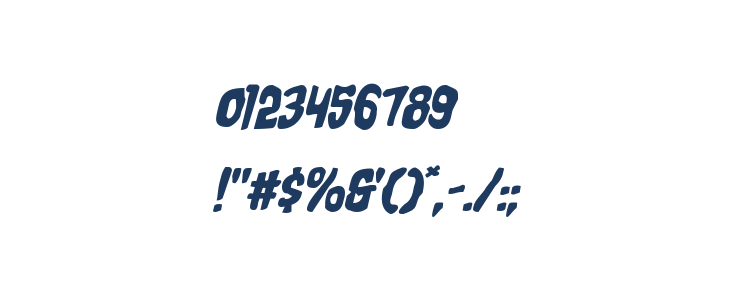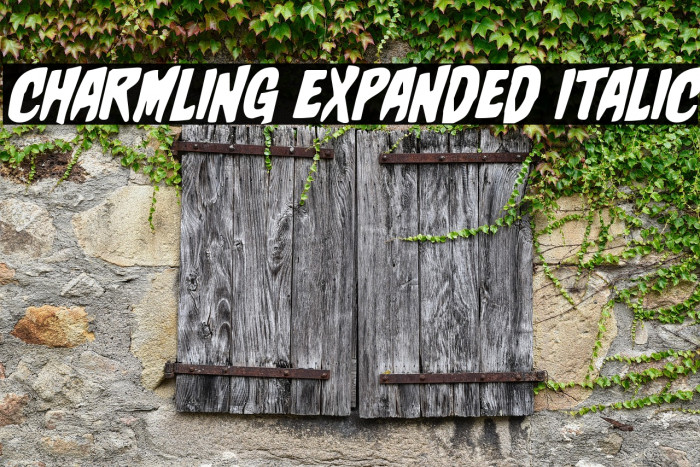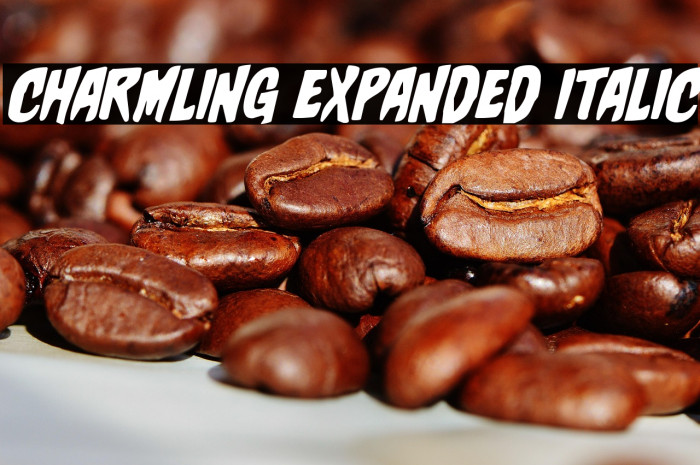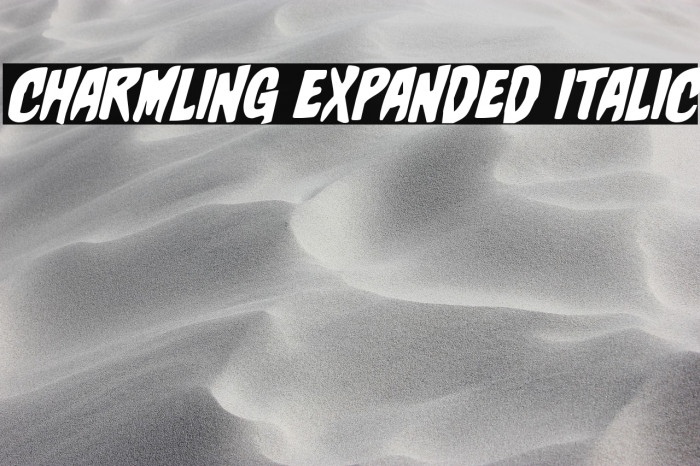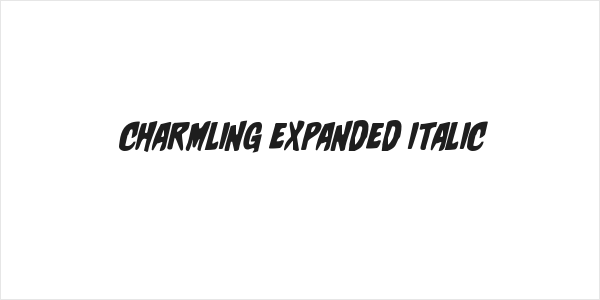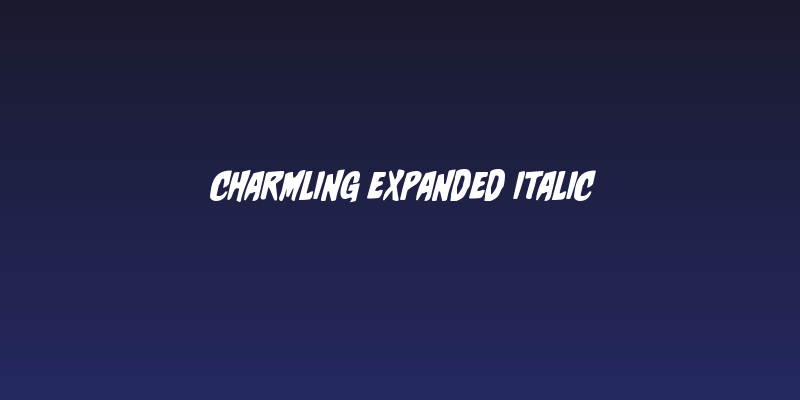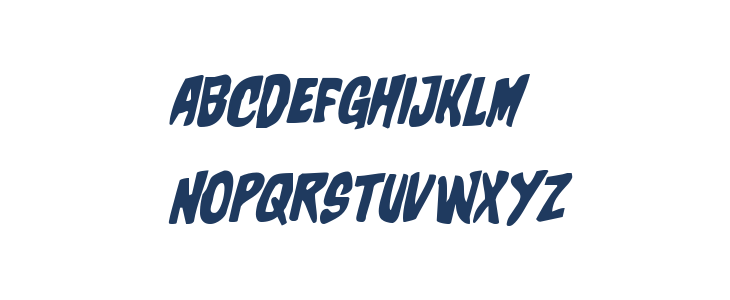
Charmling Expanded Italic Font
Charmling Expanded Italic Description
This font features a bold and dynamic style with an italic slant, giving it a sense of motion and energy. The characters are expanded, providing a wide and open appearance that enhances readability while maintaining a distinctive flair. The strokes are thick and consistent, contributing to a strong visual impact. This font is particularly suited for attention-grabbing designs due to its boldness and unique character shapes. The uppercase and lowercase letters are well-balanced, and the numerals are clear and prominent. Special characters are included, maintaining the same bold and italicized style, making this font versatile for various design needs.
| Proposed Projects | Ideal for posters, headlines, branding, and any design requiring a bold statement. |